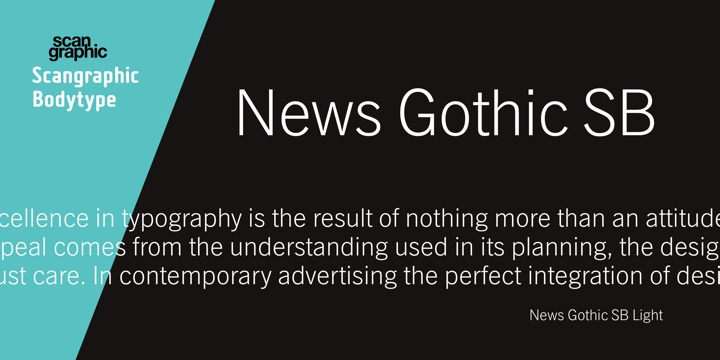
News Gothic SB Font
News Gothic SB Font is perfect for newspaper layouts, breaking news graphics, editorial magazine designs, journalism publications, media company branding, news website headers, broadcast television graphics, press release materials, investigative reporting documents, and contemporary news applications.
What makes News Gothic SB Font so exciting is its exceptional ability to deliver information with clarity, authority, and journalistic integrity through letterforms specifically engineered for optimal news readability and editorial impact. This professional typeface represents the evolution of news typography, featuring characters that seem to carry the weight of important information while maintaining the crisp clarity demanded by modern news consumption across all media platforms. The font's authoritative design elements perfectly balance journalistic credibility with contemporary accessibility, creating an indispensable tool that communicates trustworthiness, editorial excellence, and information authority, making it essential for news organizations and media brands committed to delivering reliable information.
News Gothic SB Font comes in multiple font families including Regular, Bold, Light, Italic, Bold Italic, Condensed, Extended, and Headline variations. Each family member maintains the core journalistic characteristics while offering different impact levels and stylistic approaches to suit various editorial design requirements.
The editorial precision in News Gothic SB Font makes it particularly effective for news organizations and media companies where conveying information quickly and accurately while maintaining reader engagement is crucial for audience retention and credibility. Its optimized letterforms work exceptionally well across all news media applications, from print newspapers to digital news websites, maintaining consistent editorial impact and professional presentation.
Media industry professionals recognize how News Gothic SB Font transforms ordinary news content into authoritative information delivery that builds reader trust and editorial credibility. The typeface's comprehensive character set includes extensive punctuation support, news symbols, and international language features that accommodate complex editorial requirements and global news publishing needs.
For creative professionals serving news organizations, media companies, and editorial publications, News Gothic SB Font serves as the ultimate foundation for creating memorable news experiences that capture the essential qualities of journalistic integrity, editorial excellence, and information authority that define successful news brands in competitive media markets worldwide.